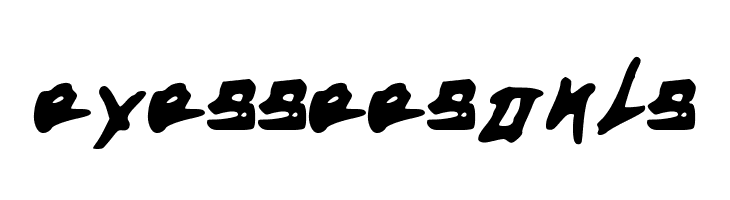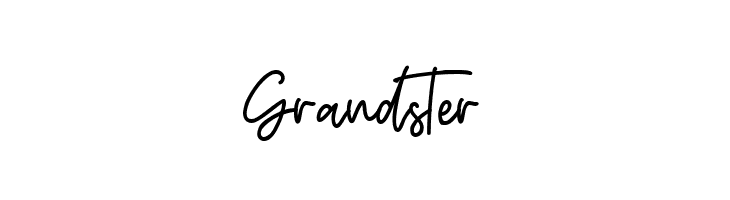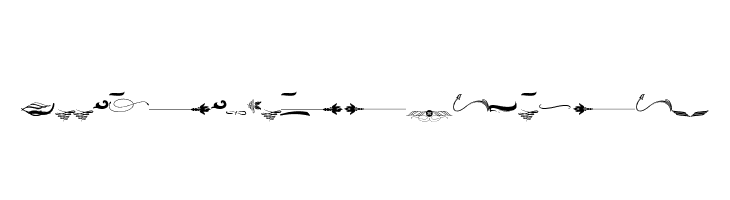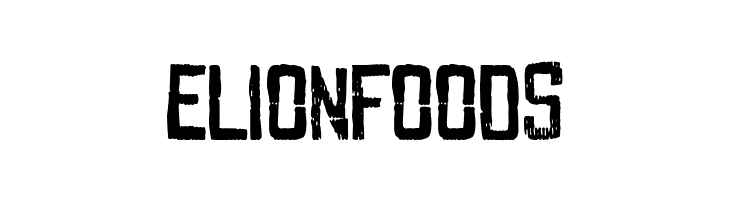
A bold, distressed font with a rugged, vintage texture.
A fluid, cursive font with elegant loops and artistic flair.
A bold, distressed font with a rugged, vintage aesthetic.
A clean, extra light Devanagari script with modern and elegant design.
A decorative font with elegant swashes and modern flair.
A fluid, handwritten cursive font with a casual elegance.
A dynamic and expressive handwritten script font with fluid, cursive letterforms.
A bold, distressed 3D font with a vintage halftone texture.
A decorative, distressed font with a grunge-like, chaotic appearance.
A bold, textured font with an icy, rugged appearance.
设计师偏爱 Krakle!, KH Erza Script, Renegades Rocks, Noto Sans Devanagari ExtraLight and Beauty Sleep Demo,因为其造型干净、适用范围广—— 从品牌识别到落地页、海报都能胜任。